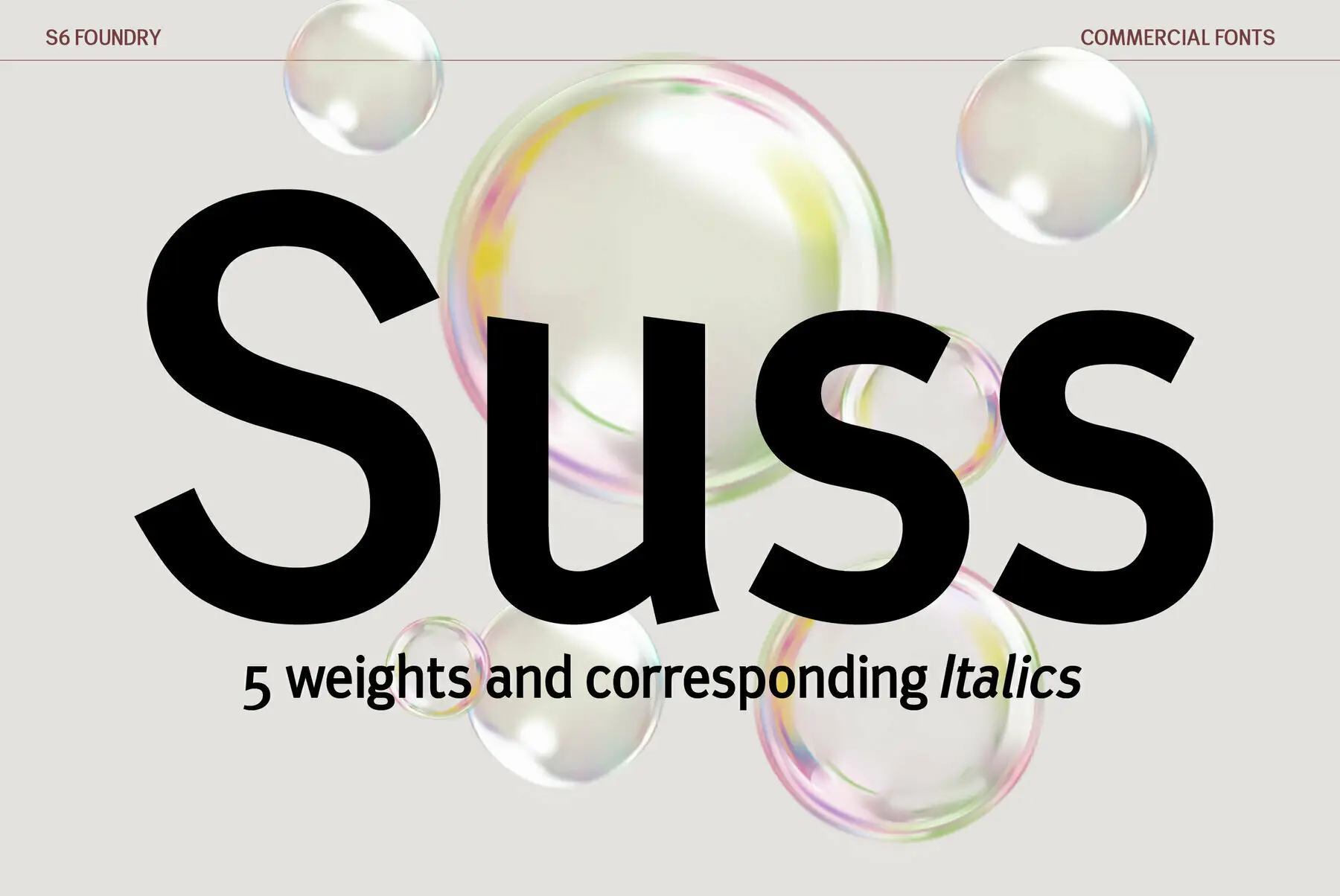
Suss Sans is an elegant contemporary sans serif typeface with strong stylistic geometric contrasts, drawing on the aesthetics and the typographic standards of Swiss modernism. The distinctive stance was designed to give the right visual consistency for branding and communications. This authentic and original typeface represents the shifting contemporary aesthetics. Suss Sans is perfectly suited for headlines, large-format prints, brand identities, social media, advertising, editorial design, posters, magazines, logos, headings, body copy, digital and more.
The Suss Sans family includes five weights, with their relative italics and multi-language support.